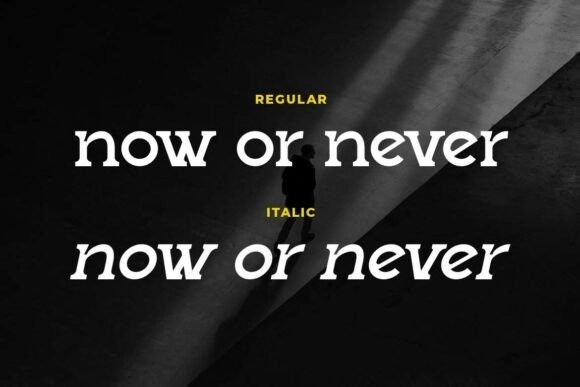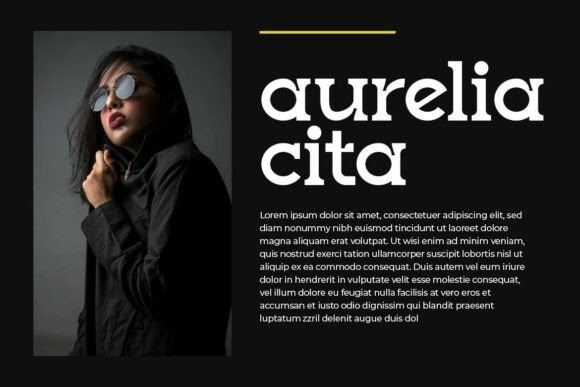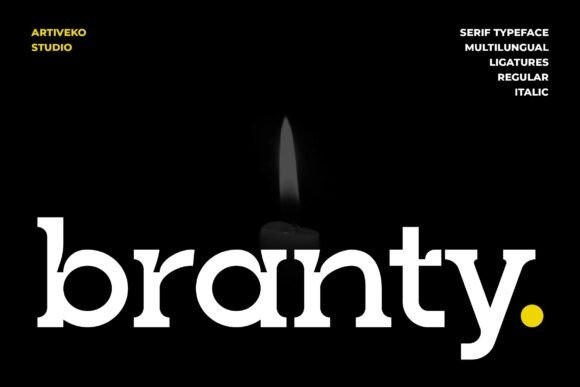
Branty Font
Branty Font is a refined serif font designed to blend classic charm with a contemporary edge. Featuring clean lines, high-contrast strokes, and stylish serifs, Branty is perfect for modern branding, editorial layouts, magazine covers, wedding invitations, luxury packaging, and premium logo designs.